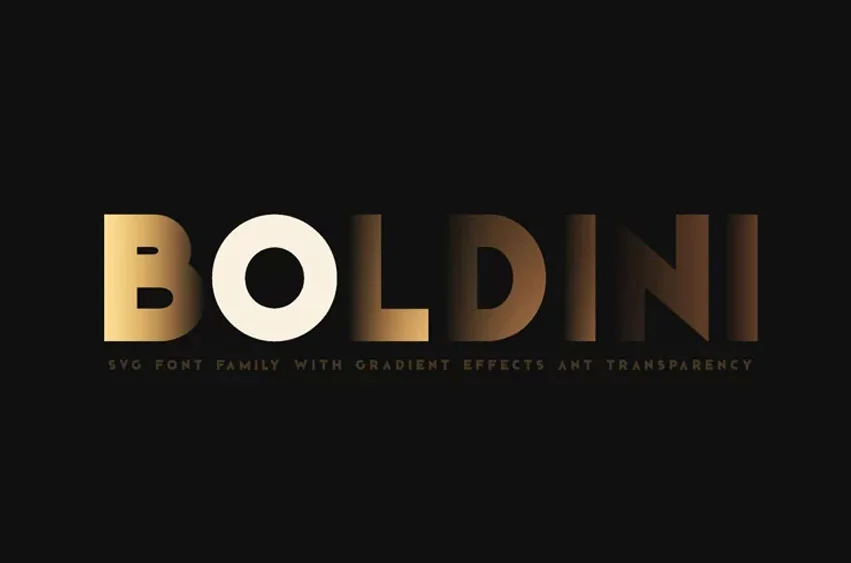
Boldini Font
Boldini Font original bold Sans Serif font with stylish letters. In the package you will find a universal classic OTF / TTF font and newfangled unique SVG color fonts with gradients and transparency. The letters of the font are perfectly combined with each other. Quickly create cool headers without spending a lot of time decorating words. Combine the classic letters TTF with gradient letters SVG, thereby making accents in designs. 3 font families allow you to be original.